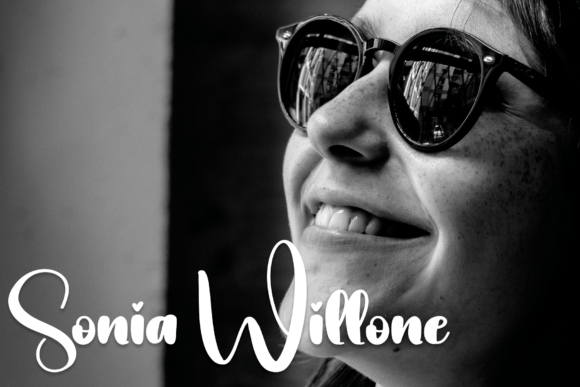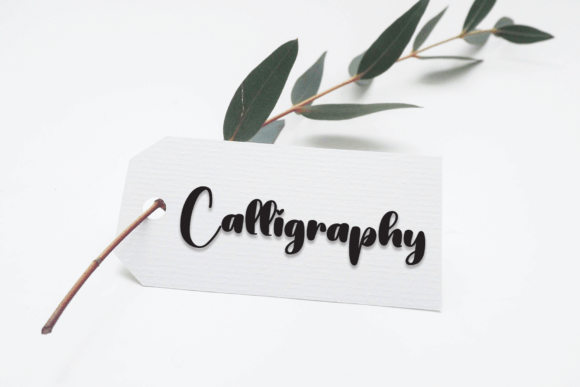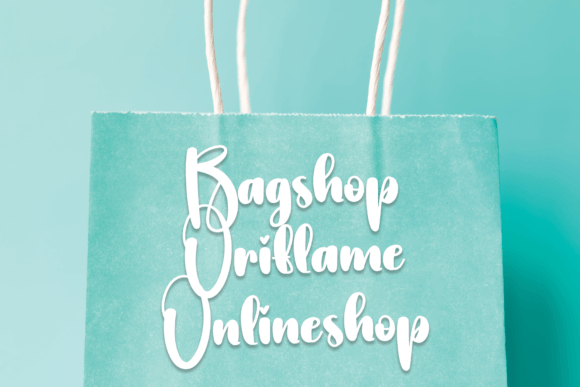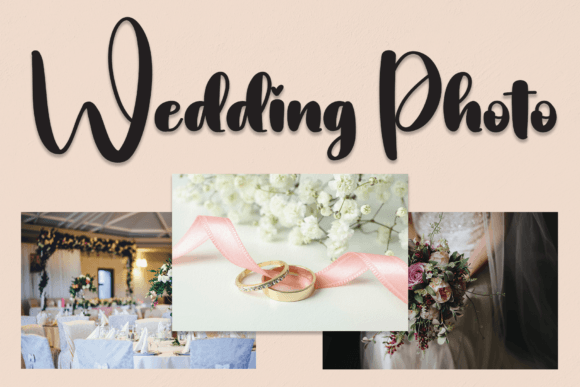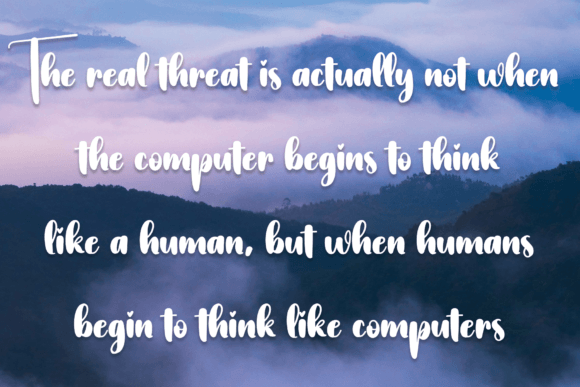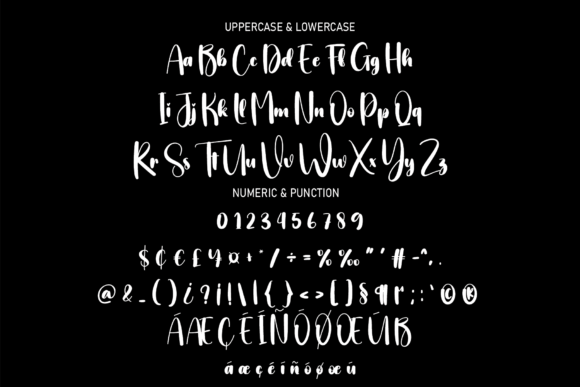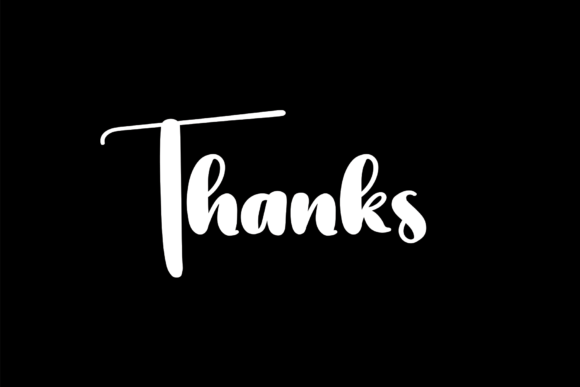
Bold Style Font
About Bold Style Font
“Bold Style’s” latest style letters offer a bold and impactful handwritten font that is well-suited for a wide range of design applications. Whether you’re creating wall displays, wedding invitations, social media post logos, advertisements, product packaging, product designs, labels, photography watermarks, invitations, stationery, or any project that calls for a handwritten touch, “Bold Style’s” has you covered.
The appeal of “Bold Style’s” lies in its ability to make a strong visual statement. Each character is thoughtfully designed to exude a bold and dynamic vibe, making it an ideal choice for projects where you want to create a visually striking and expressive impression. This font allows you to add a touch of confidence and impact to your content.
For branding, product designs, promotional materials, and various design applications, “Bold Style’s” provides the creative freedom to make your projects stand out. Its handwritten style can enhance the visual appeal of your designs and effectively communicate your message to your audience.
In summary, “Bold Style’s” latest style letters are a valuable font choice that brings boldness and impact to your projects. Its handwritten and dynamic script style makes it suitable for a variety of applications, and its ability to convey confidence and strength sets it apart. With “Bold Style’s” in your font collection, your design projects will make a lasting and memorable impression.